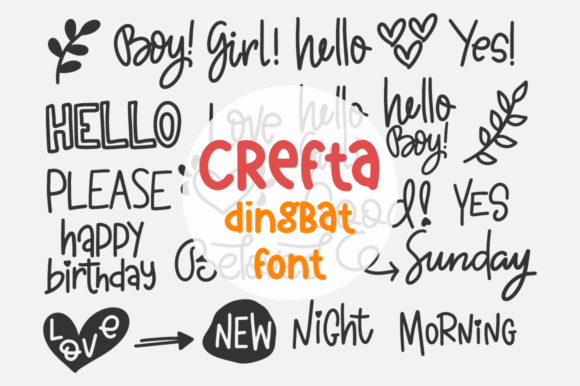
In a world overrun by monotonous text, monotony breeds boredom and boredom stifles creativity. Unleash your inner artist and let your thoughts dance across the page with Crefta, a captivating dingbats font that transforms the mundane into the mesmerizing. A creation of the talented Letterayu, Crefta is more than just a font; it's an invitation to let your imagination soar.
Crefta's playful and charming glyphs breathe life into your words, turning everyday notes into captivating works of art. Its whimsical designs ignite the imagination, making revision notes a joy to create and review. Each character dances and twirls, capturing your attention and keeping you engaged as you delve into the depths of knowledge.
With Crefta, your revision notes become a visual feast, a symphony of symbols that resonate with your thoughts. Its versatility knows no bounds, adapting seamlessly to any subject, any mood, any style. Whether you're a student seeking to conquer exams or a professional seeking to unleash your creativity, Crefta is your steadfast companion, ready to elevate your written expressions to new heights.
Crefta's meticulously crafted characters possess an inherent charm that captivates the eye and sparks the imagination. Its intricate details and thoughtful design choices ensure that every symbol tells a story, conveying emotions and concepts beyond mere words. With Crefta, your revision notes transcend the realm of the ordinary, becoming windows into your unique perspective, reflecting your thoughts in a way that's both personal and profound.
Whether you're a seasoned artist or just beginning your creative journey, Crefta is the ultimate tool to ignite your imagination and let your creativity shine. Its intuitive design and user-friendly interface make it accessible to all, empowering you to effortlessly create visually stunning notes that captivate and inspire.
Join the creative revolution and embrace the power of Crefta, the dingbats font that transforms the mundane into the magnificent. Let your thoughts take flight as you weave tales and explore new worlds, all within the confines of your revision notes. With Crefta, the possibilities are as endless as your imagination.